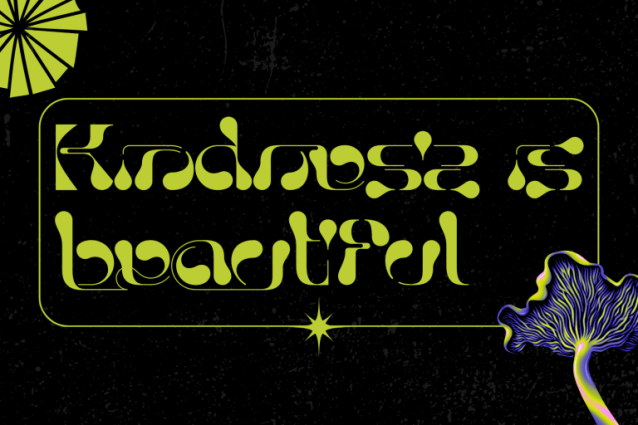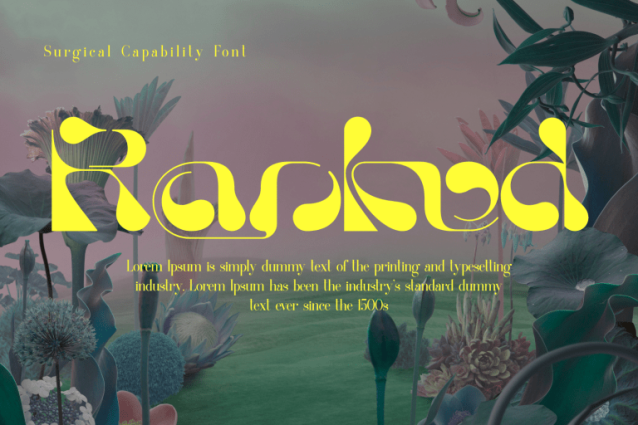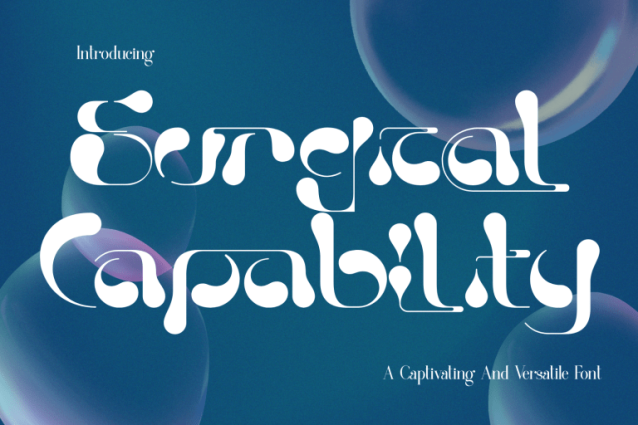
Surgical Capability Font
Surgical Capability – Unique Font is a unique organic liquid display typeface that blends modern experimental design with soft, flowing letterforms. Inspired by fluid motion and natural shapes, this typeface features smooth curves, elegant structures, and distinctive droplet terminals that create a fresh and artistic visual identity. Each character is carefully crafted to feel dynamic and expressive, combining decorative elements with refined balance. Surgical Capability is perfect for beauty branding, skincare packaging, luxury design, creative posters, and modern editorial layouts.
🔤Features:
Uppercase & Lowercase Letters
Around 100 Special Ligatures & Alternates
Accented Characters for multilingual support
🔤About 100 ligatures combined with Stylistic Alternates Font: